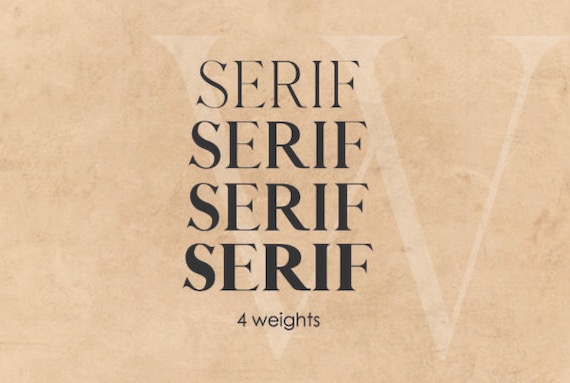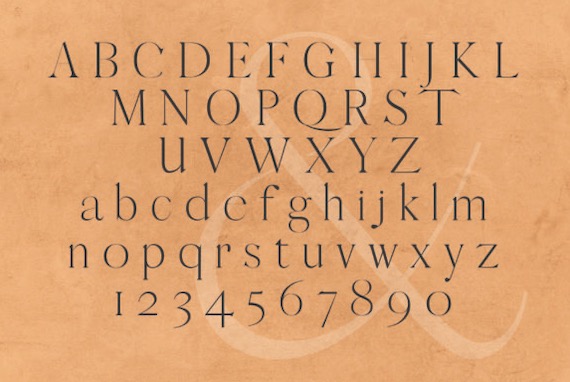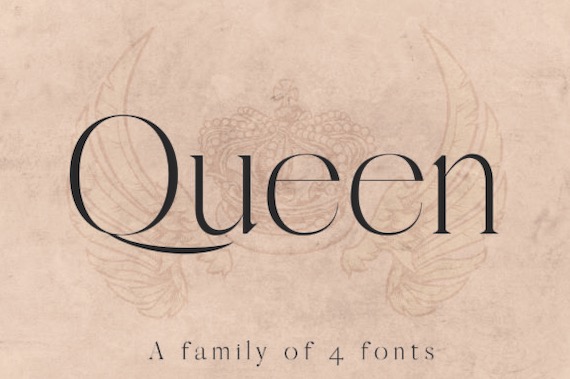
Wow, Queen Font. Queen is a great famous symbol in many times. And Queen Font was created and shared by Dene Studios. This Serif font will make an elegant and amazing look in your favorite designs.
Queen Serif Font